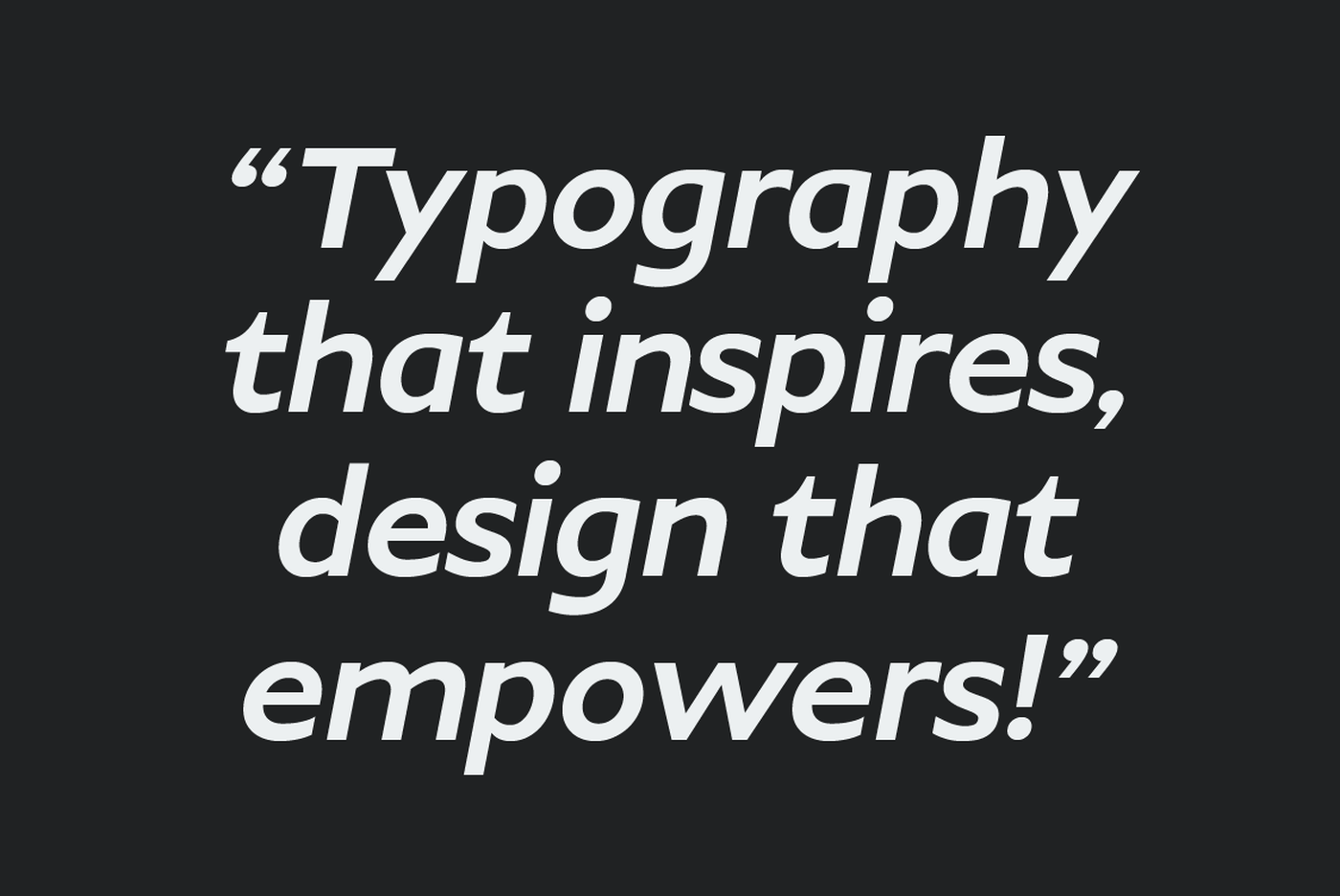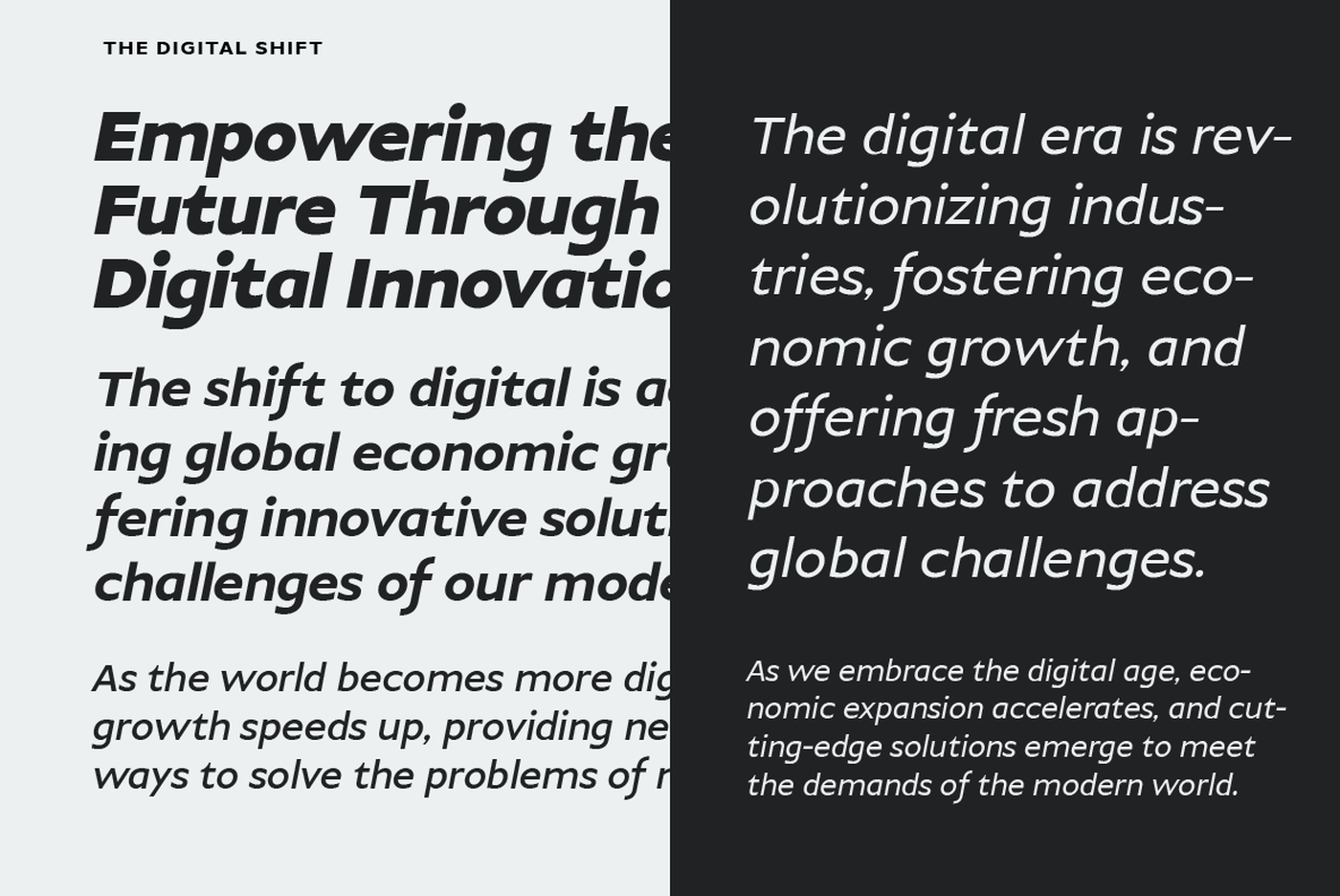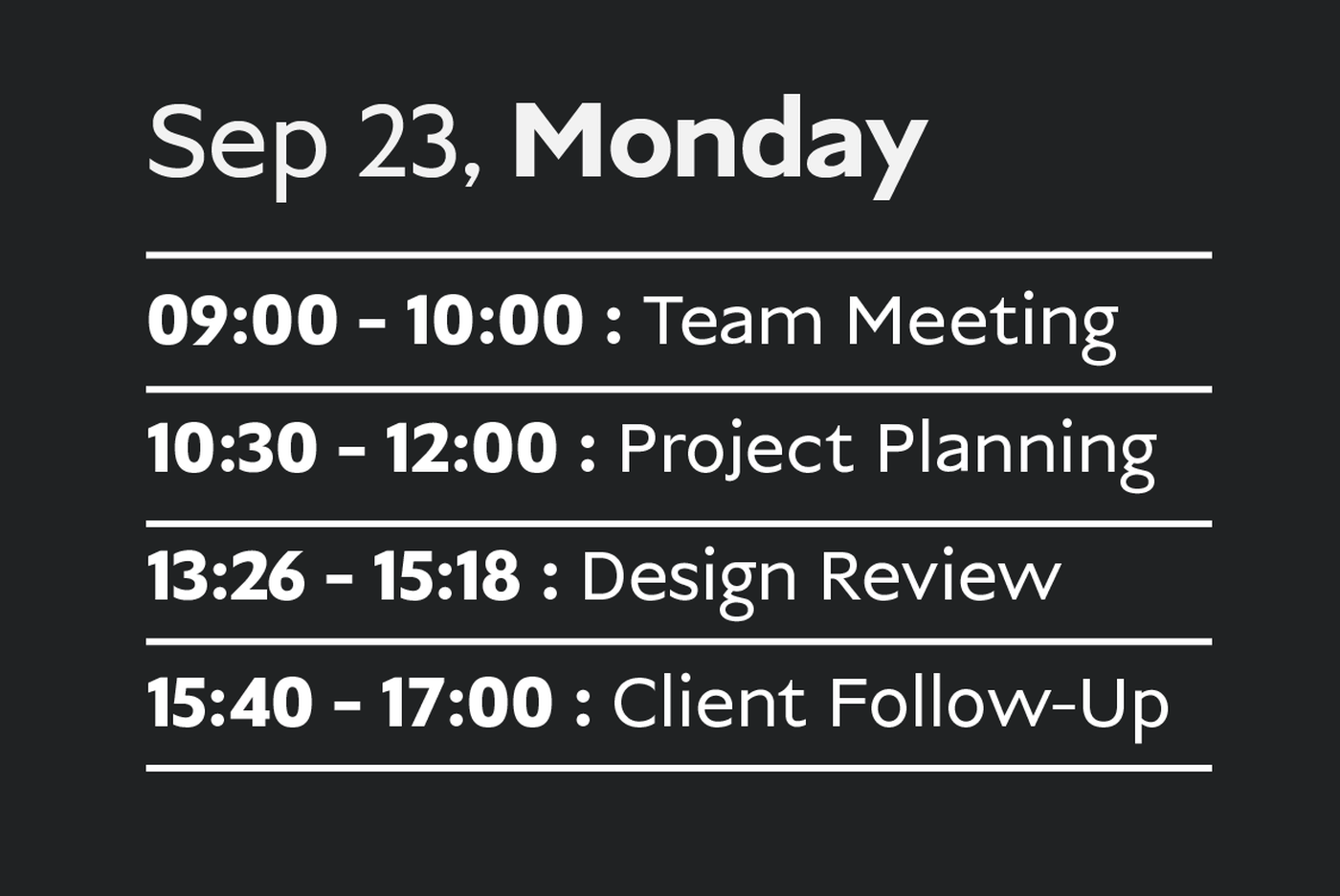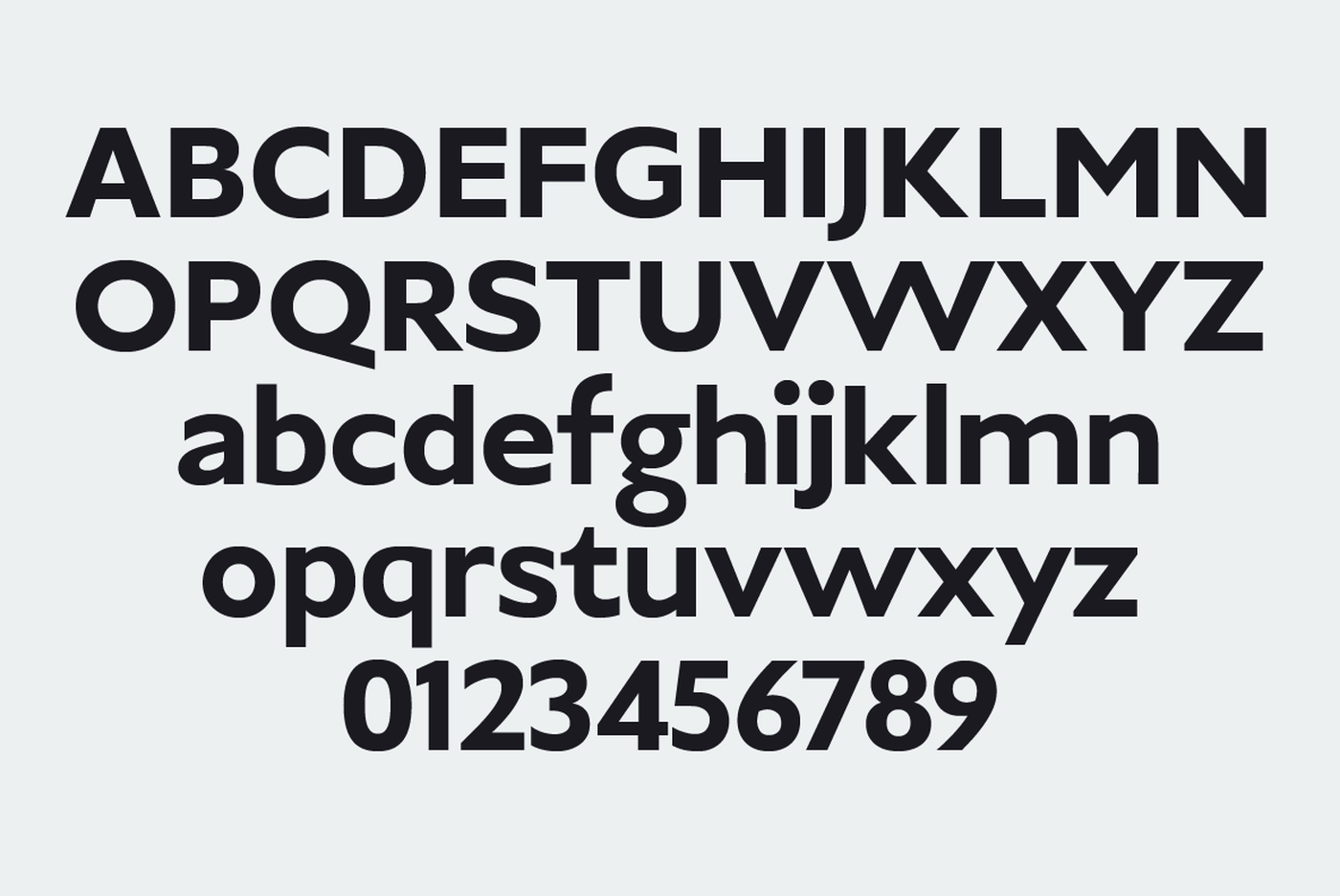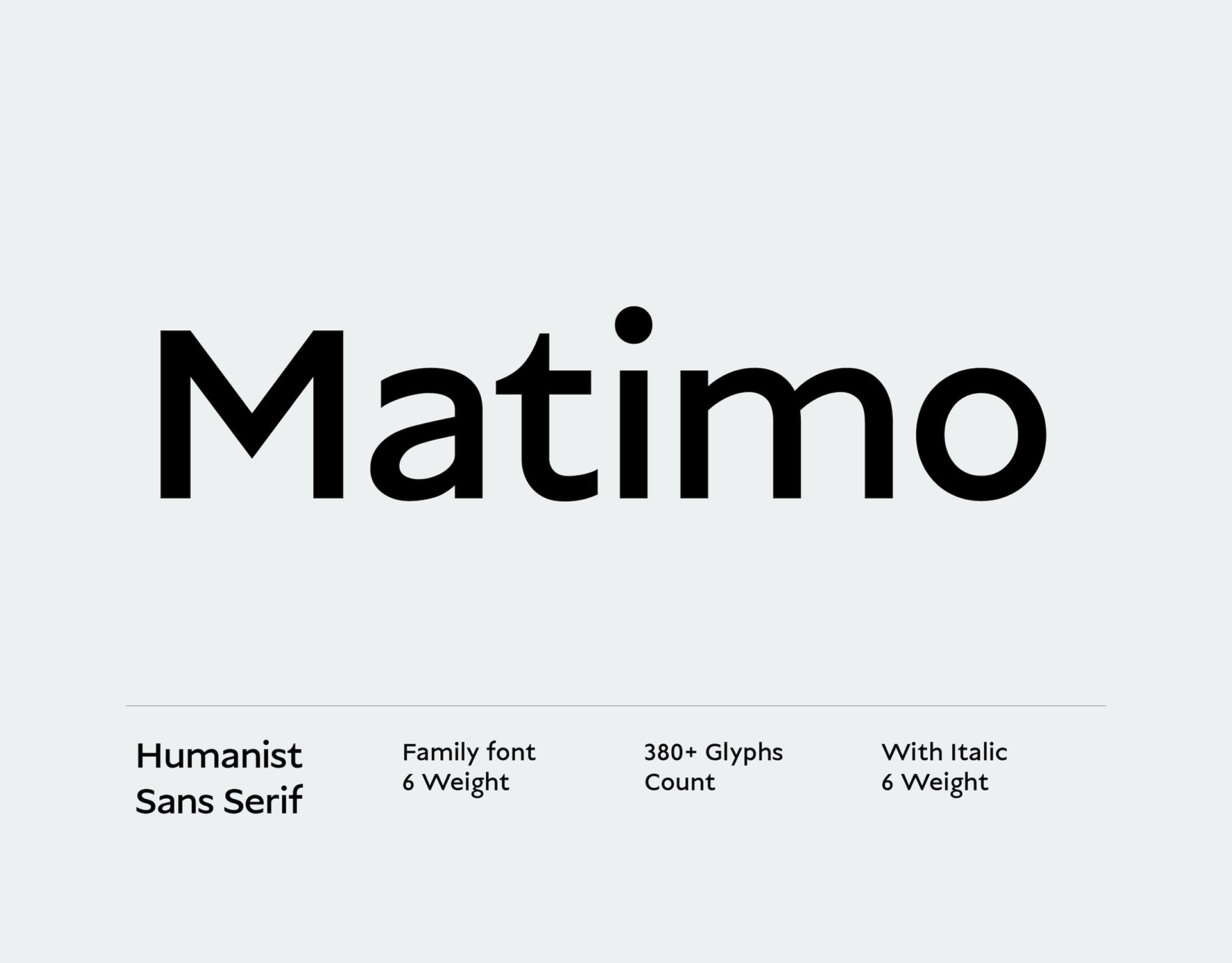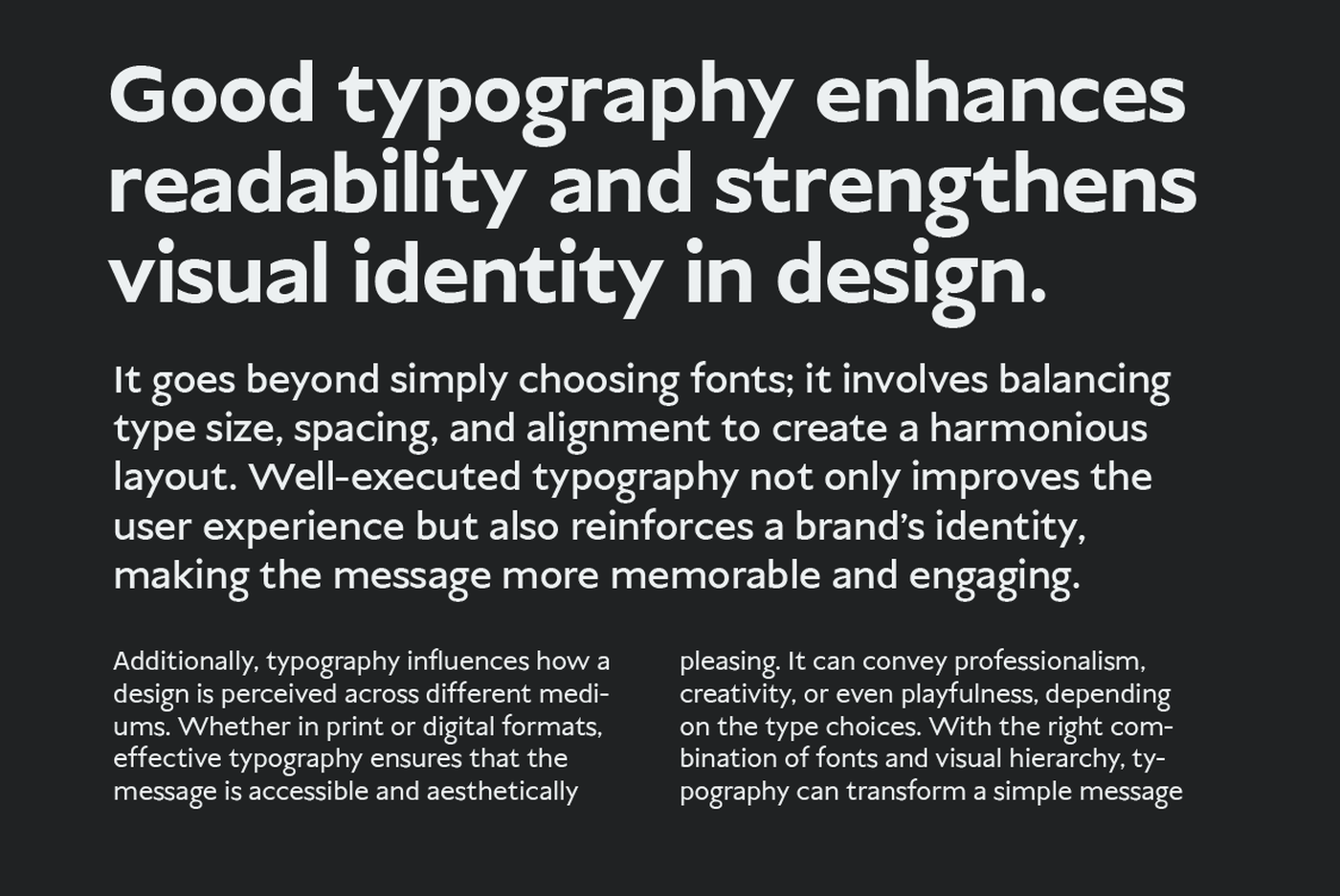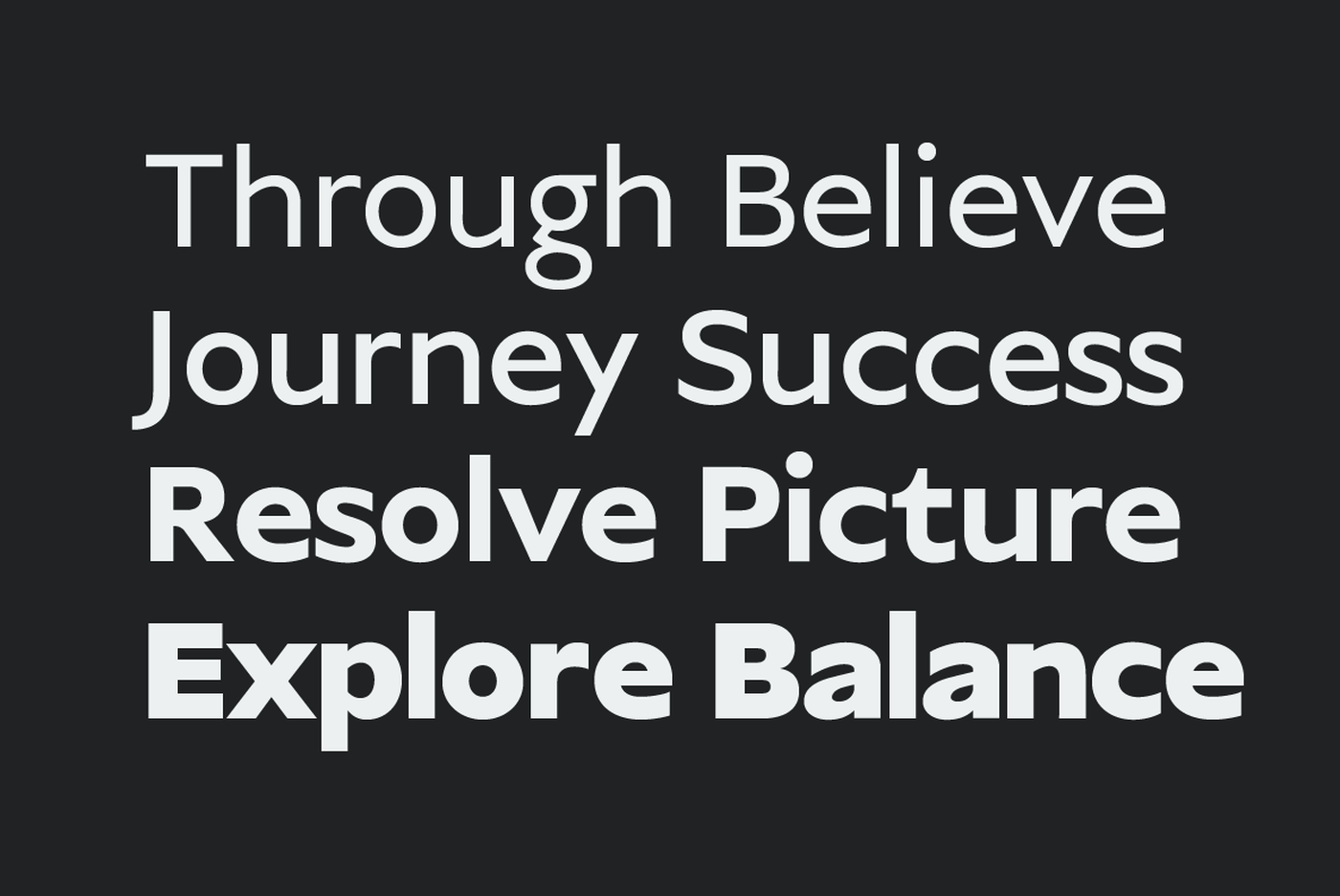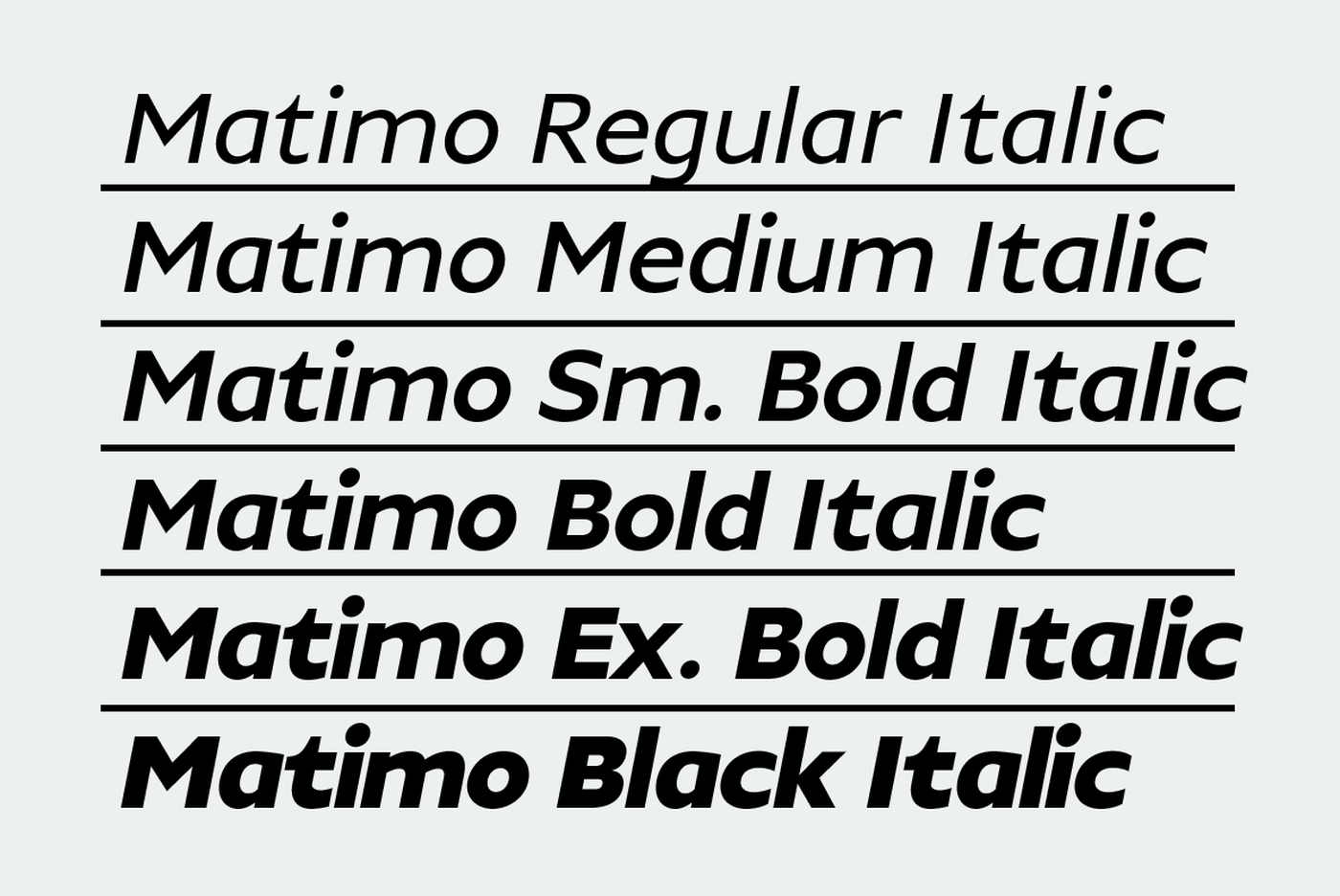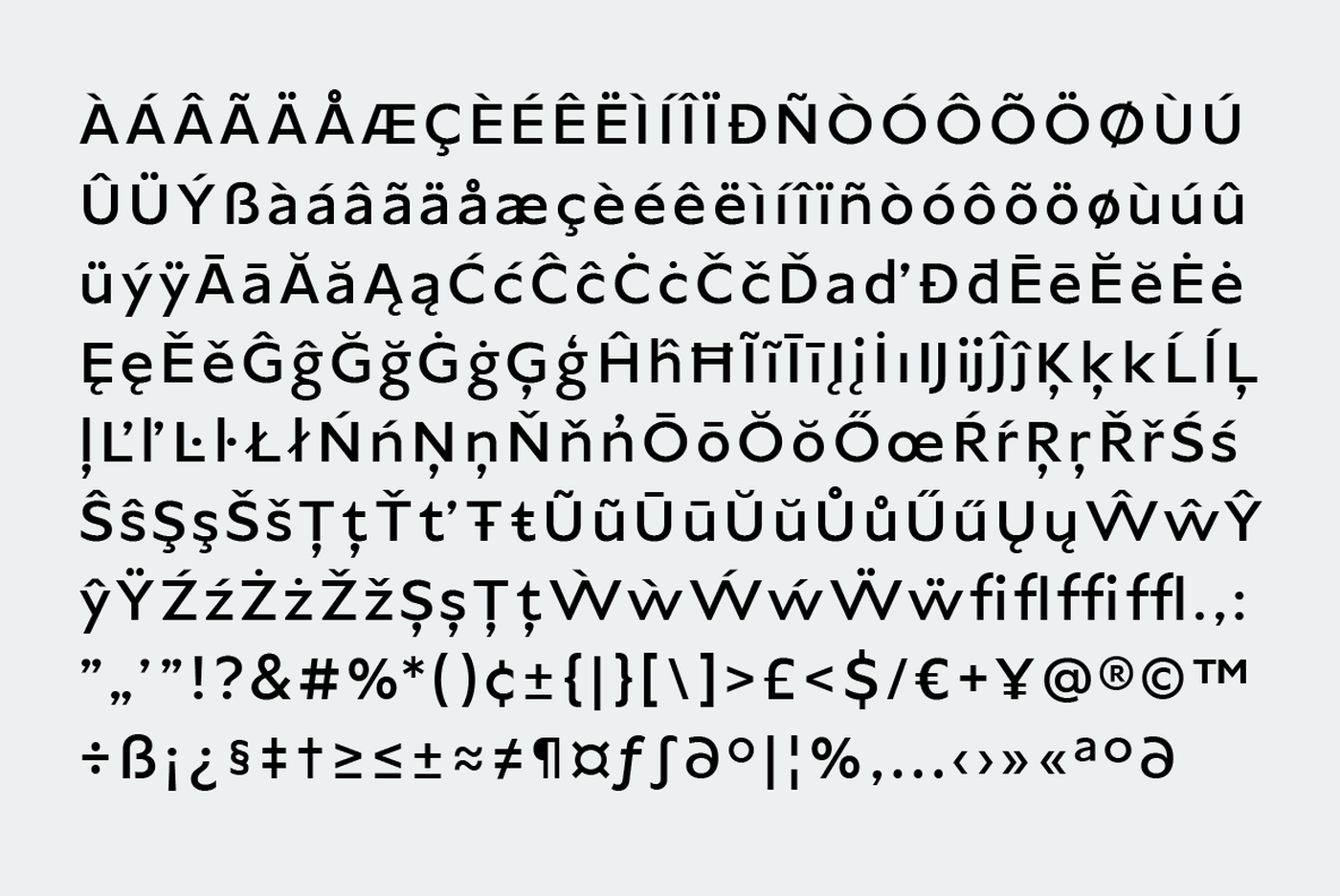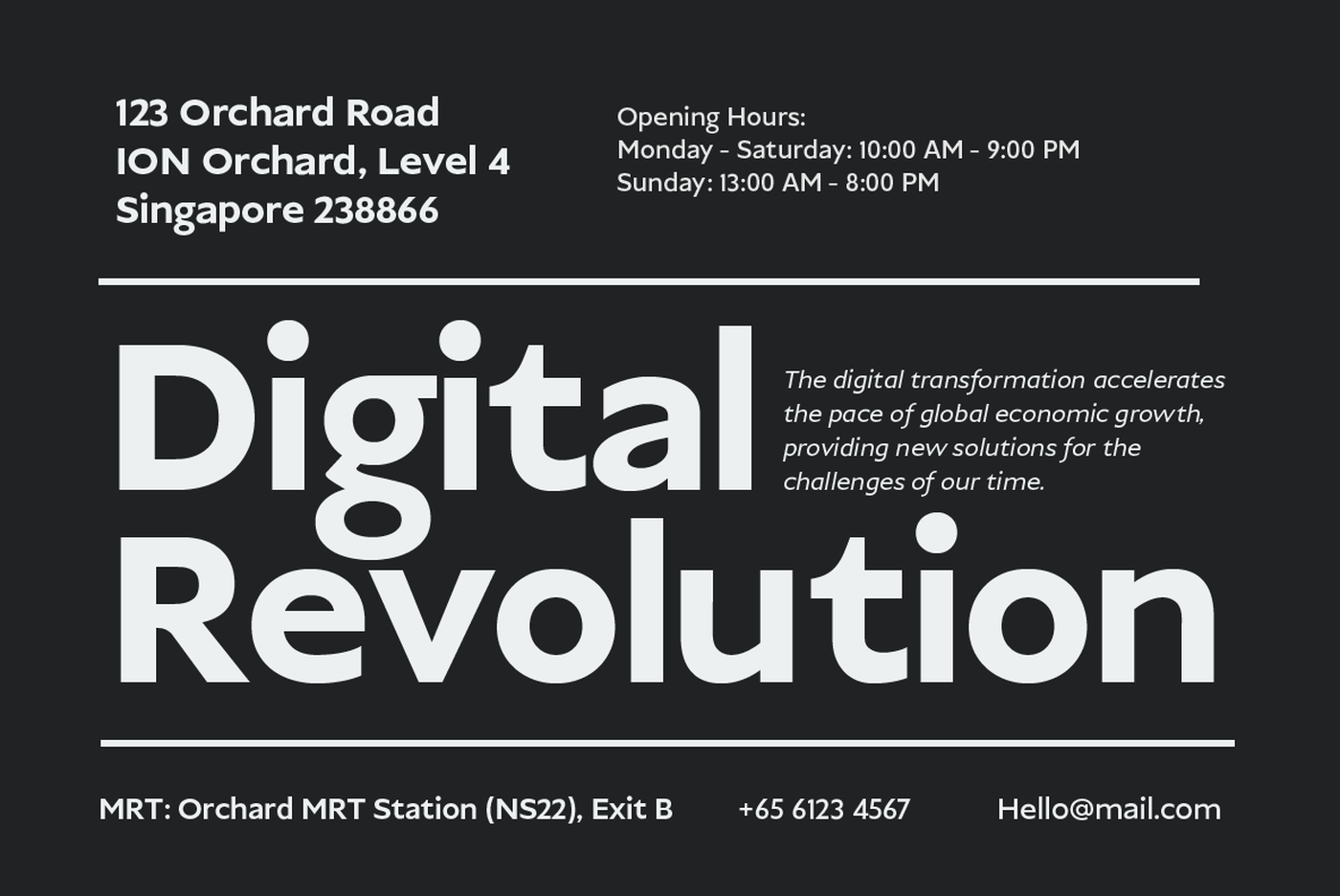
Matimo - Humanist Sans Serif Font Family
Discover Matimo, a humanist sans serif font designed to offer elegance and readability. With a total of 12 styles, including 6 weights: Regular, Medium, Semi Bold, Bold, Extra Bold, and Black, along with 6 italic styles, Matimo is perfect for a variety of design projects, from branding to editorial typography.